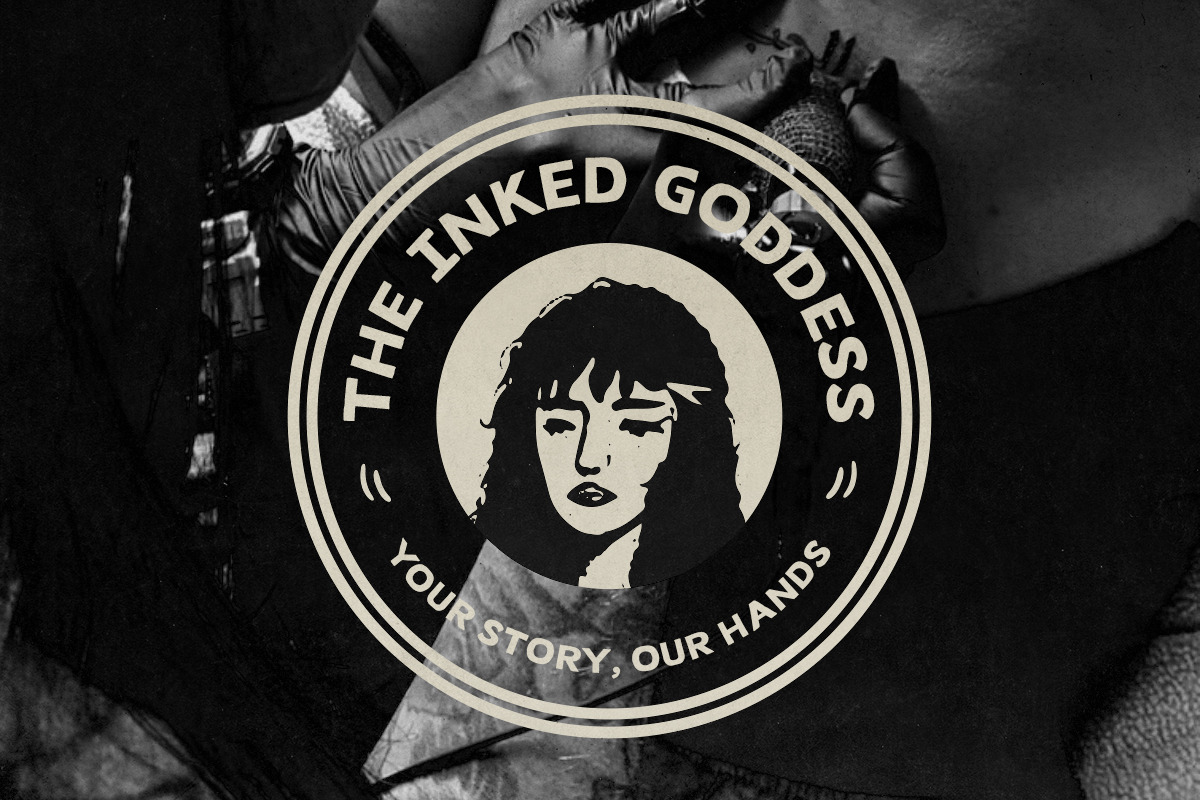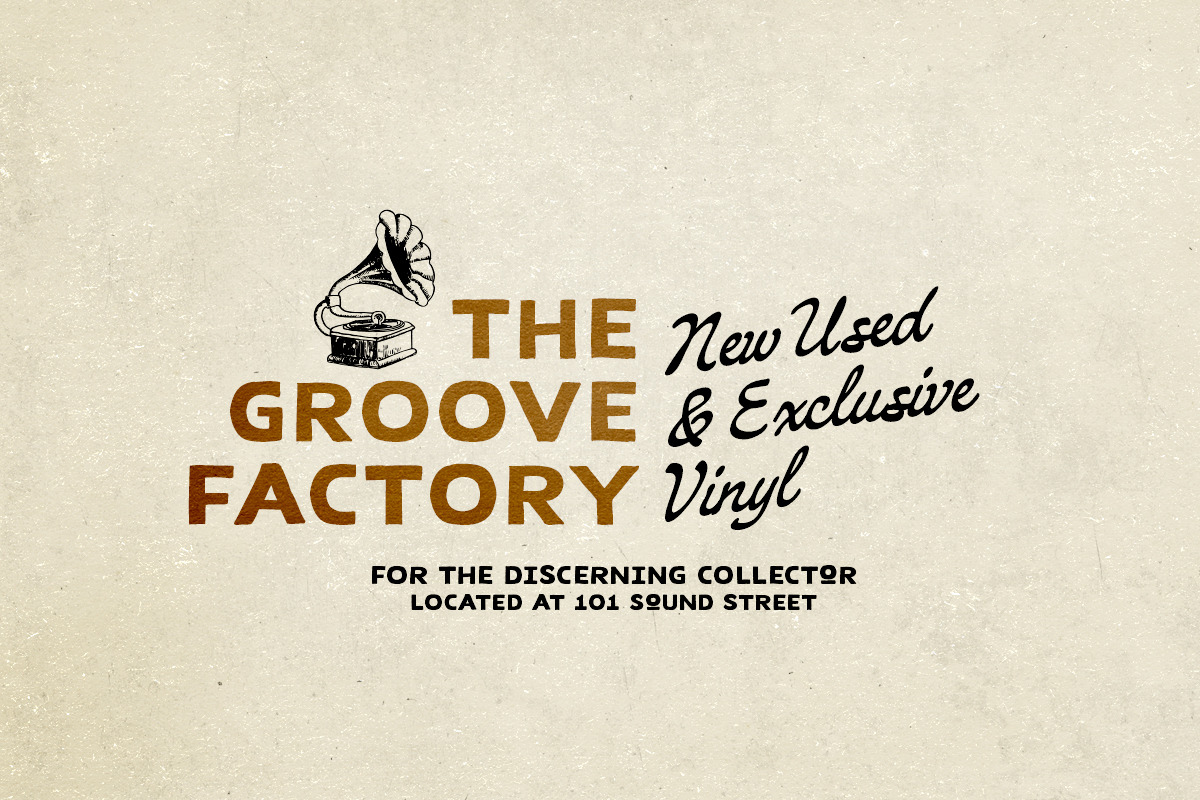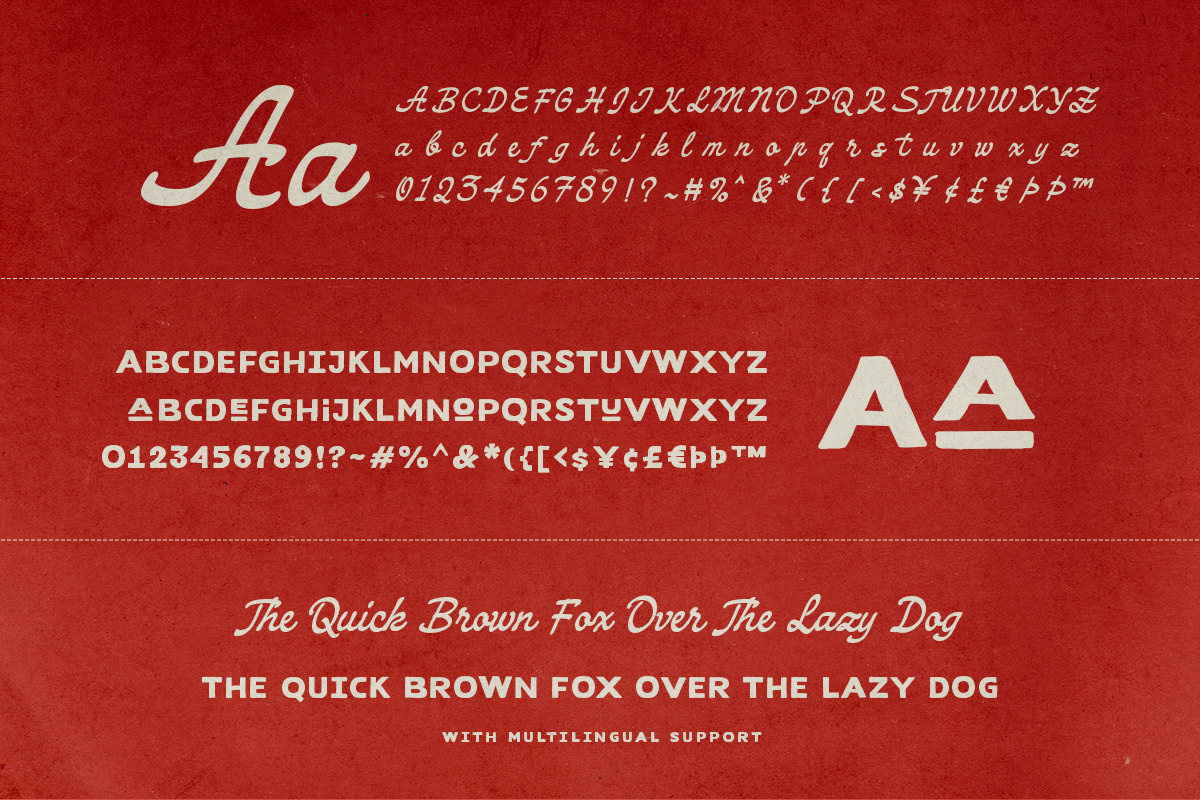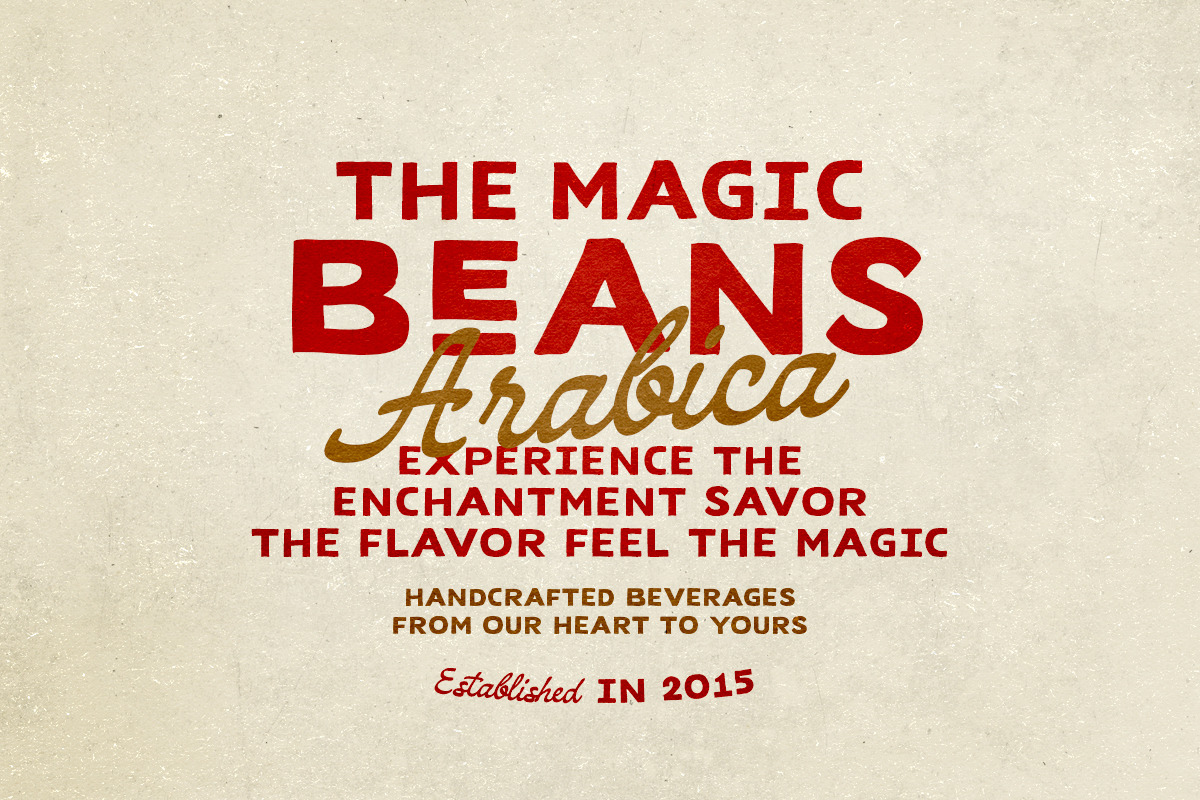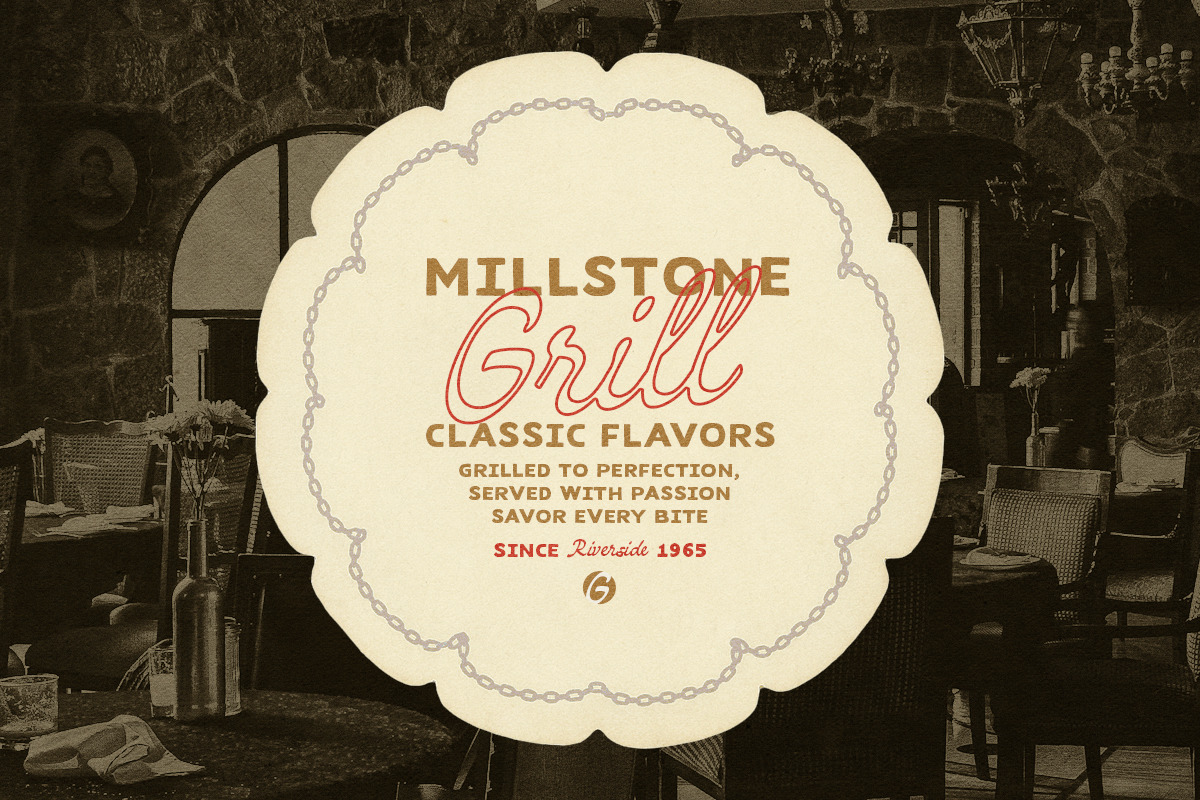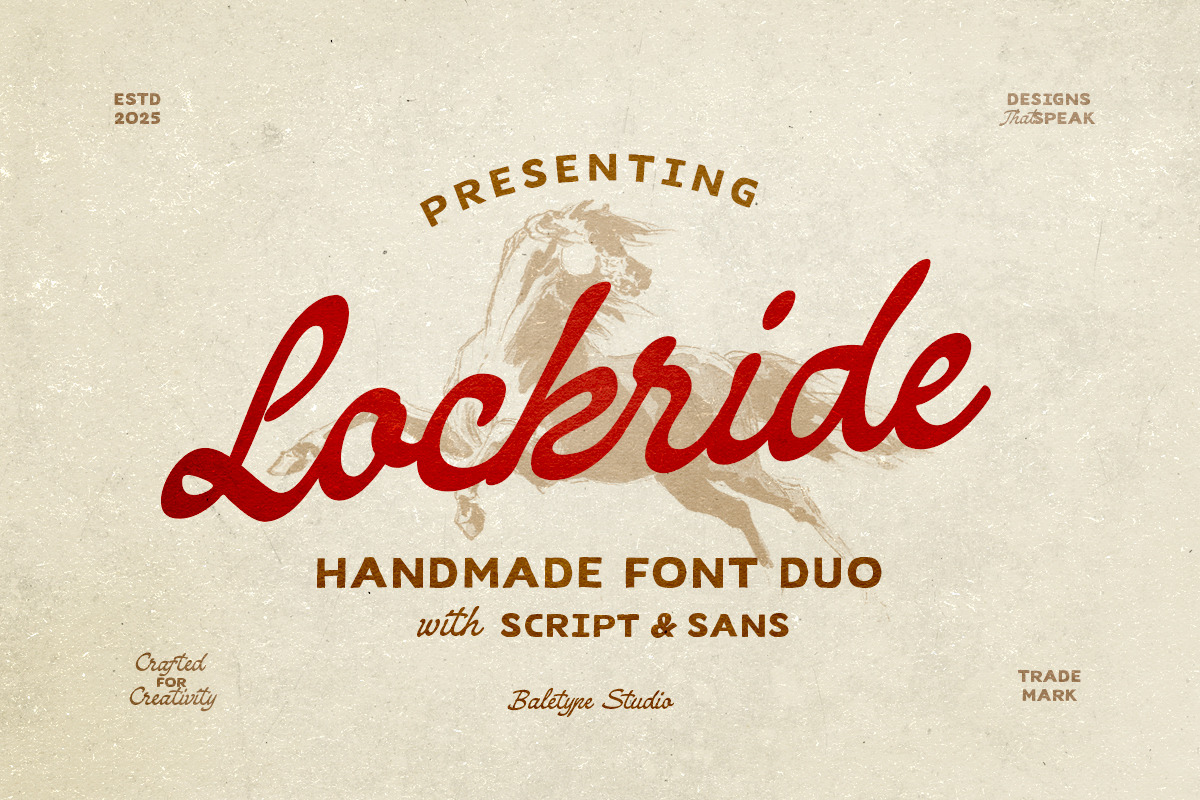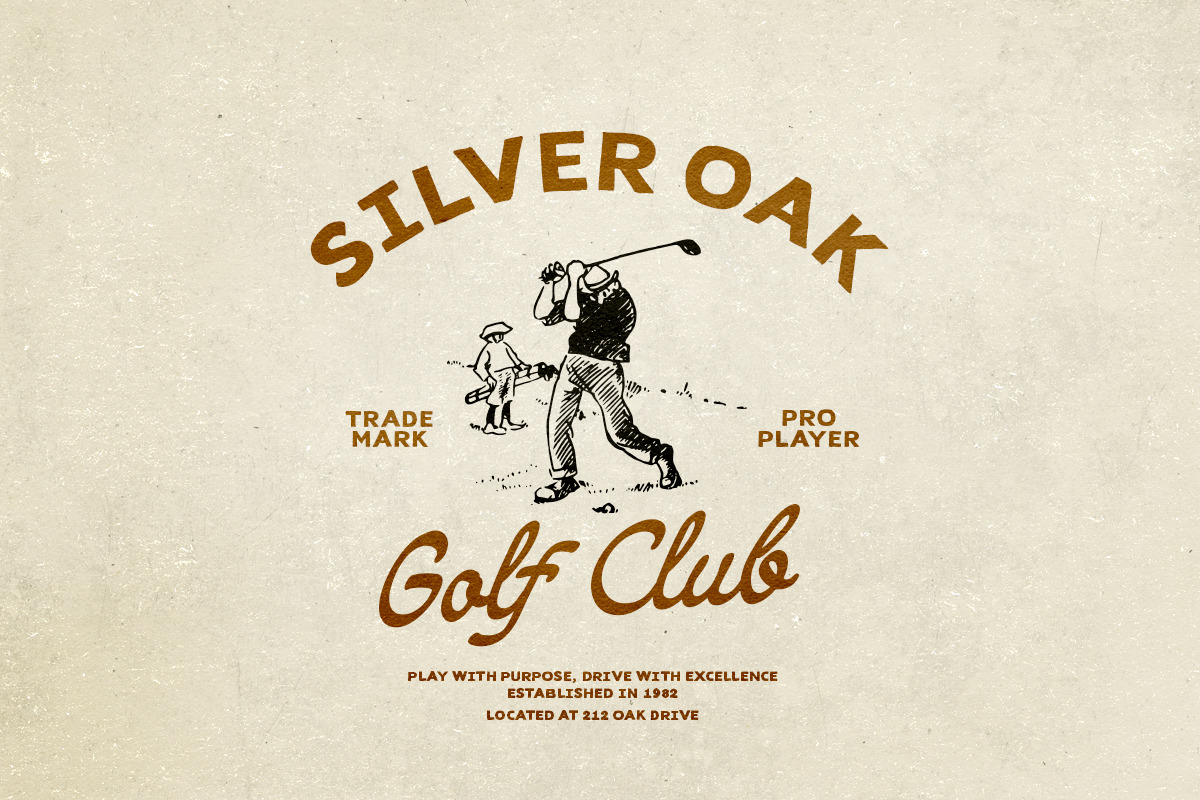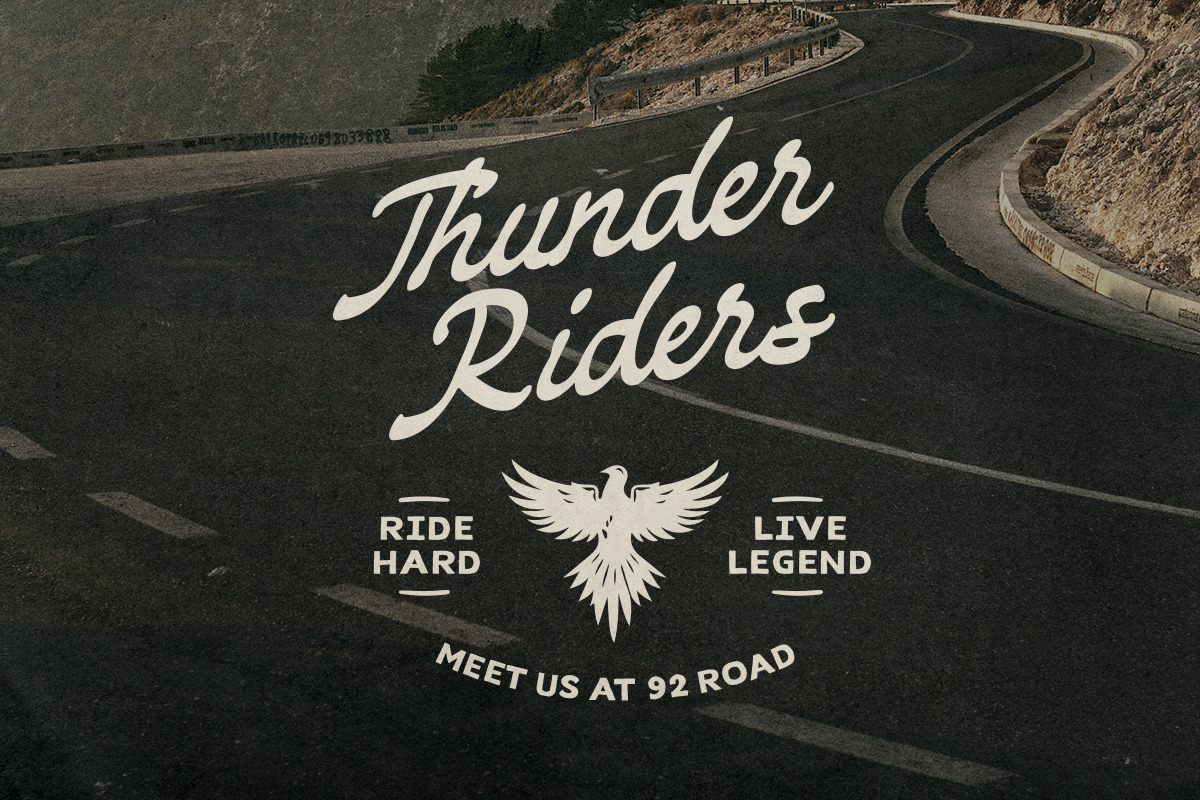
Lockride - Vintage Font Duo
Lockride is a vintage font duo that contains hand-lettered sans and script that have old school looks. You can use this font for any purpose such as poster, book cover, logo, branding and quote as well. This font is suitable for project that have outdoor or adventure themes. Lockride also support multi language.